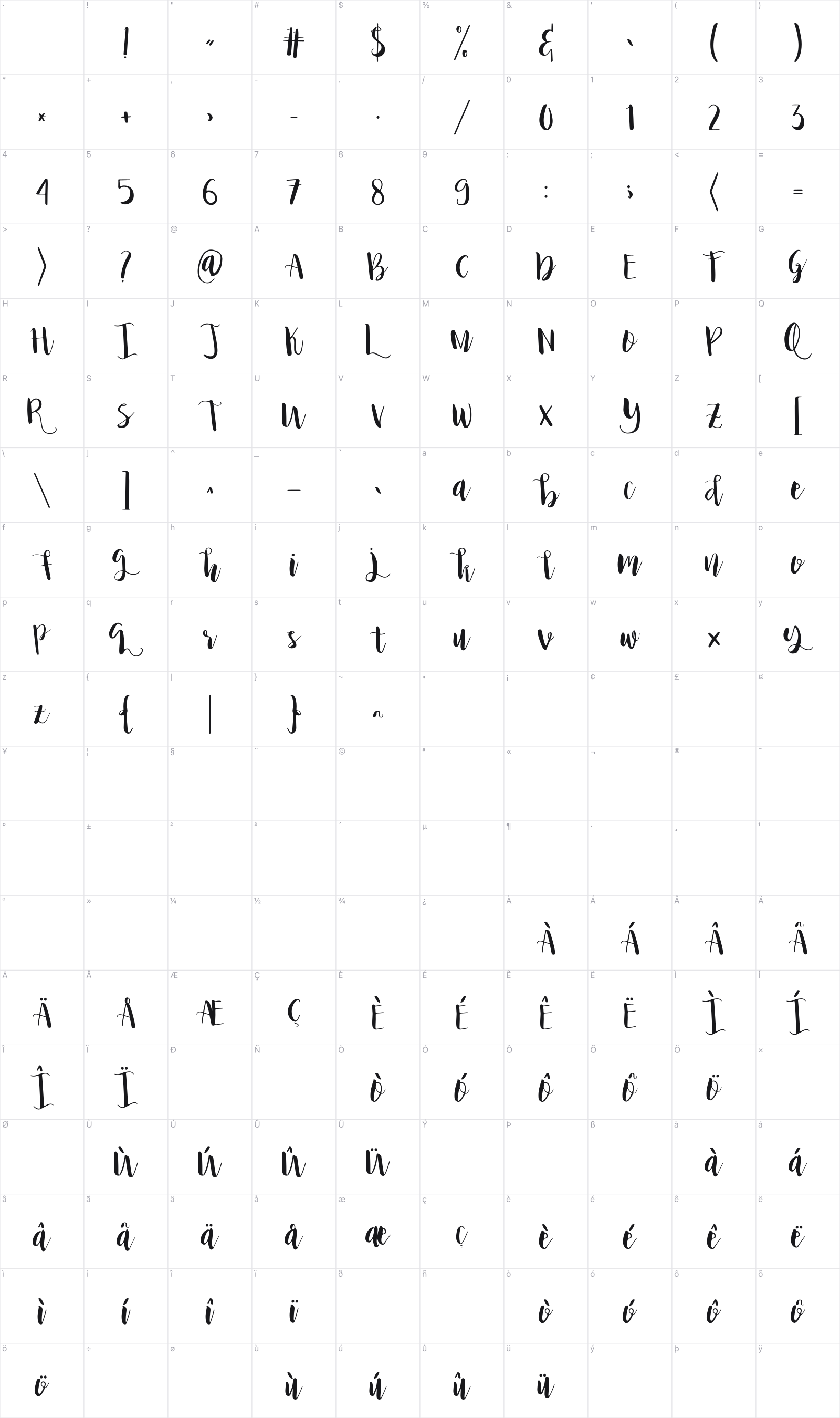
Princess Ivy
Princess Ivy is a flowing brush script from Creative Fabrica with soft, sweeping strokes that feel both casual and refined. The letterforms carry a distinctly feminine elegance, with decorative flourishes that stay graceful rather than overdone. A natural pick for wedding invitations, event stationery, and branding where you want something handwritten and romantic without losing legibility.